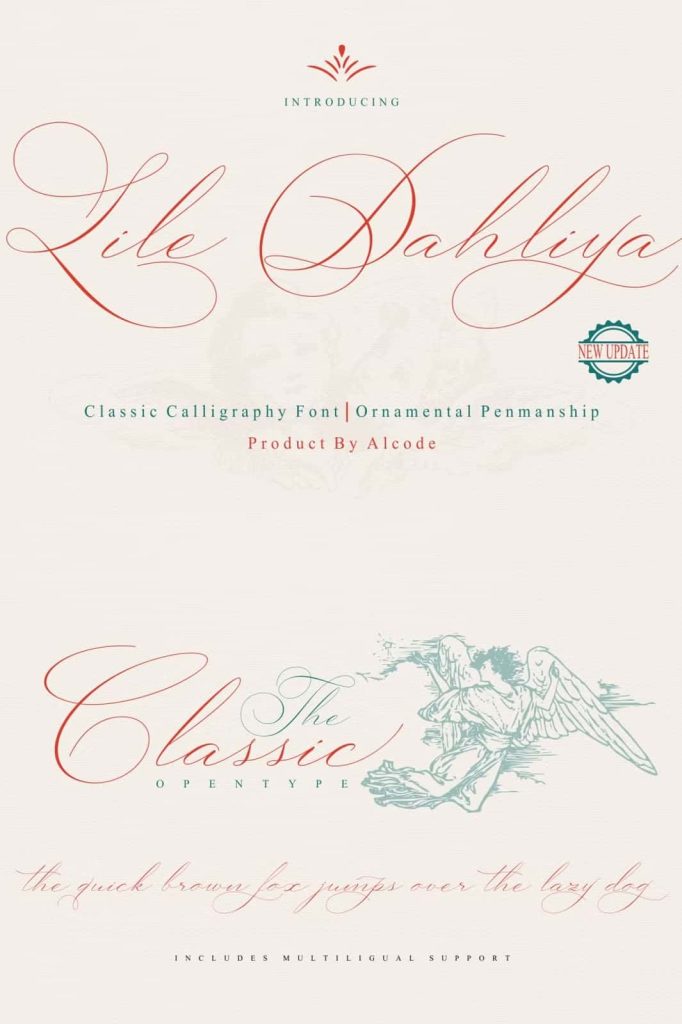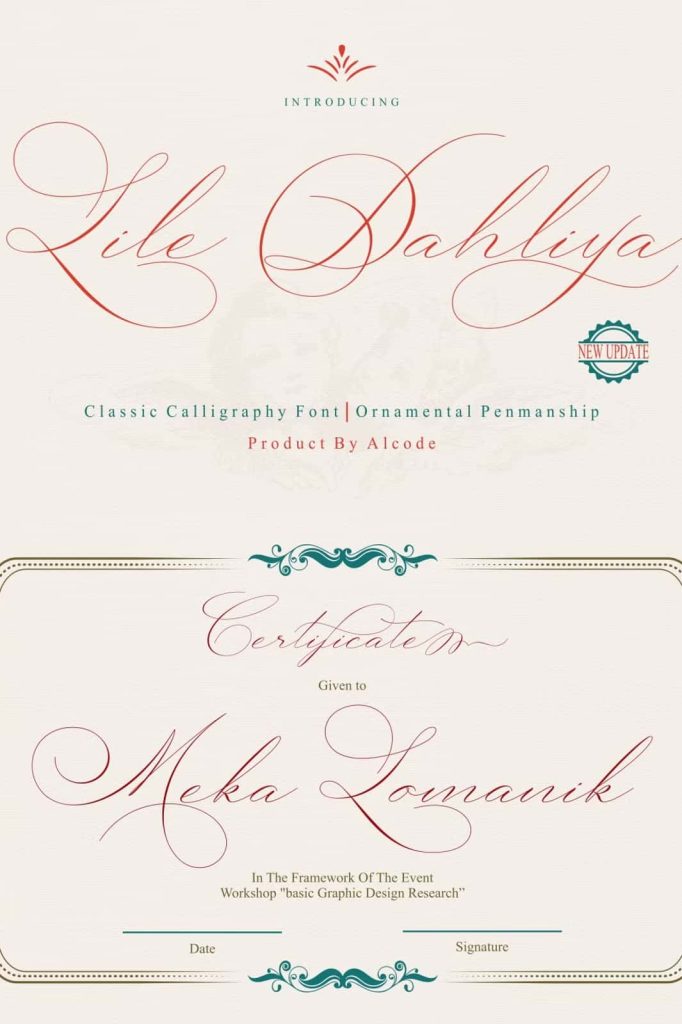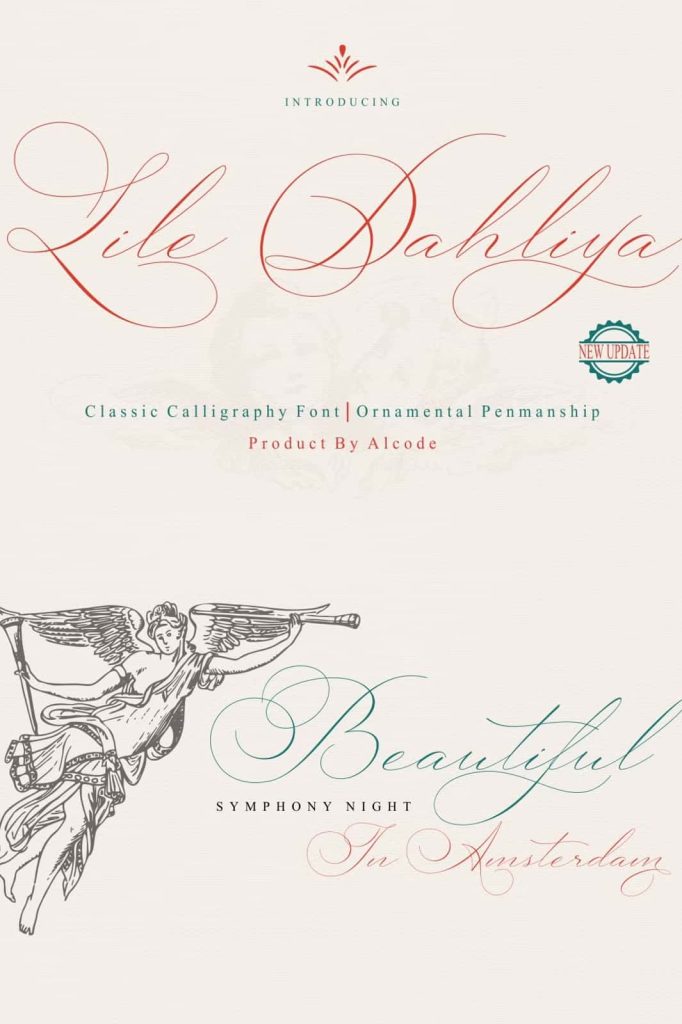
Lile DahliyaleastedMarch 12, 2025Fonts Lile Dahliya is a classic font, I built it with my relaxed hands. designing a classic font but having a modern element in it Download